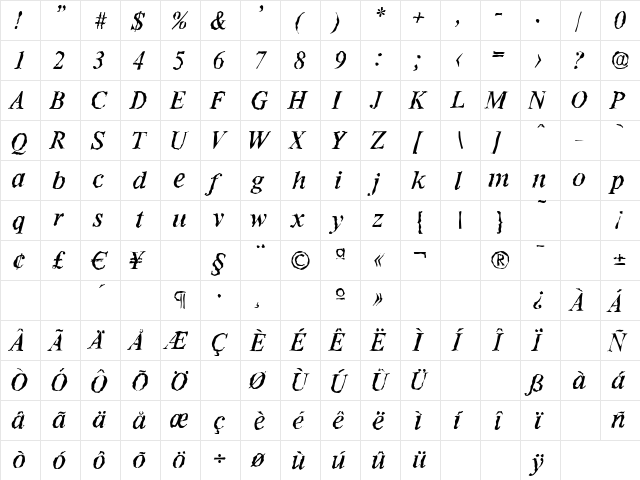
RiccioneRandom Italic
Design Context for RiccioneRandom Typeface
RiccioneRandom takes a measured approach to typography — its balanced proportions and neutral character make it a reliable workhorse for both digital and print work. The slanted form adds forward momentum and visual energy.
Pro Tip: Try RiccioneRandom for annotation and caption copy alongside an upright companion — the contrast in angle creates a dynamic but ordered typographic system.